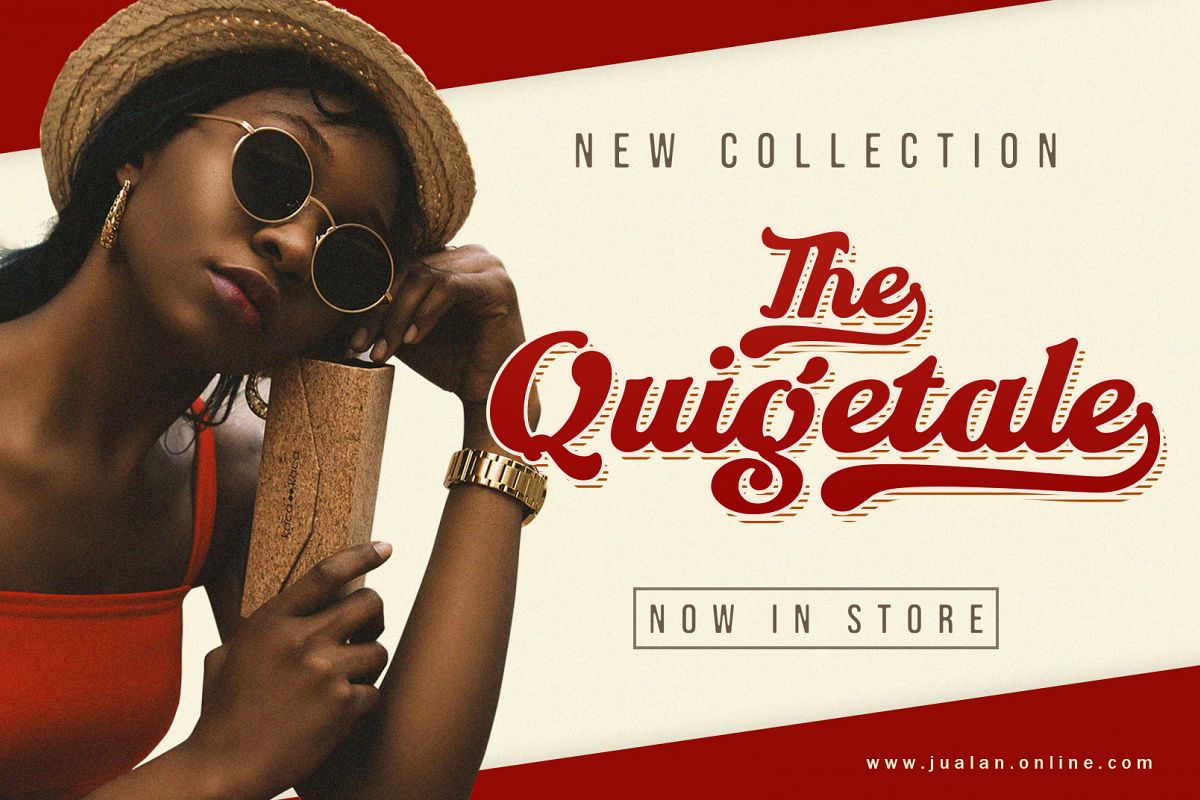
The Blagious Bold Script
**Blagious Bold Script** is one of my fonts based on a hand lettering project in 2017. It was very inspired from the famous retro typography designs in late 60's untill 80's.
**Blagious Bold Script** is a unique, cool and modern handwritten font. It's hand look style makes it perfect for use in all your design projects be it logos, Labels, Packaging design, Blog headlines, Poster, Instagram Design, etc